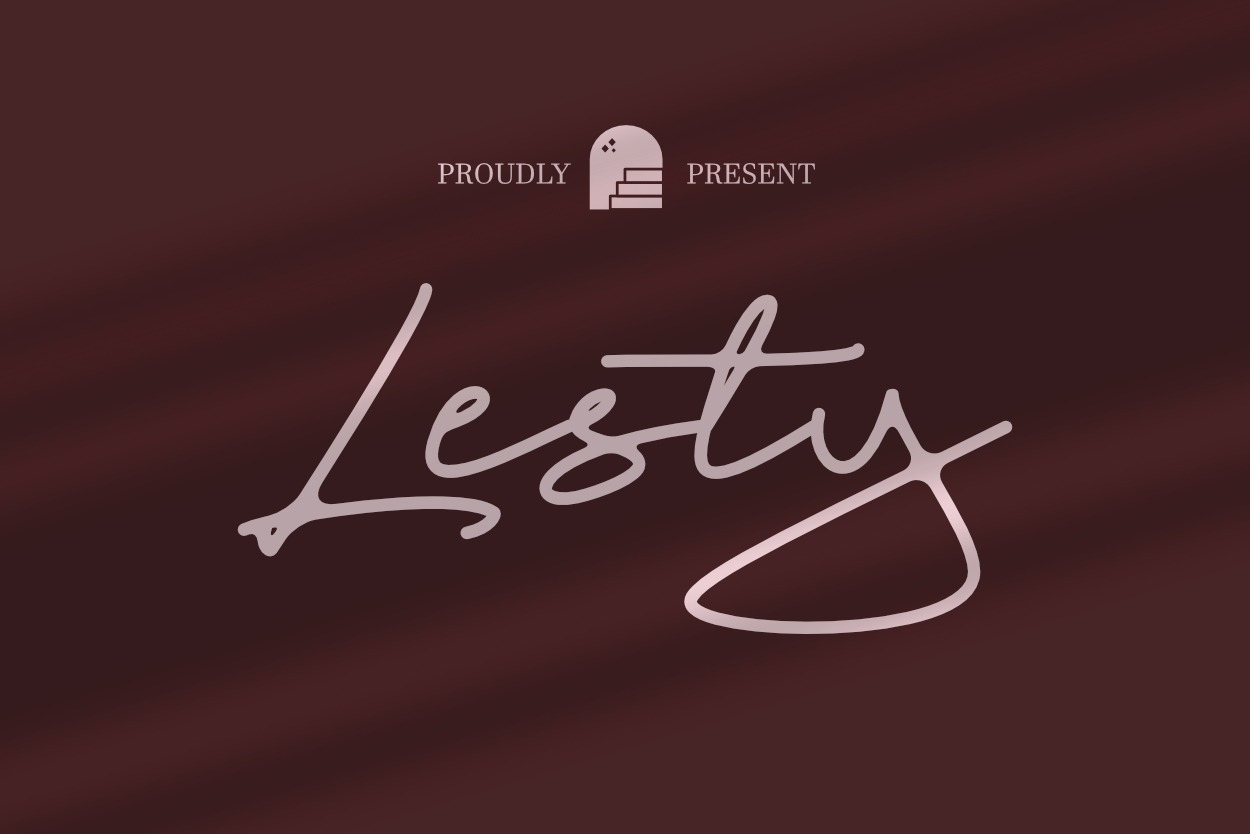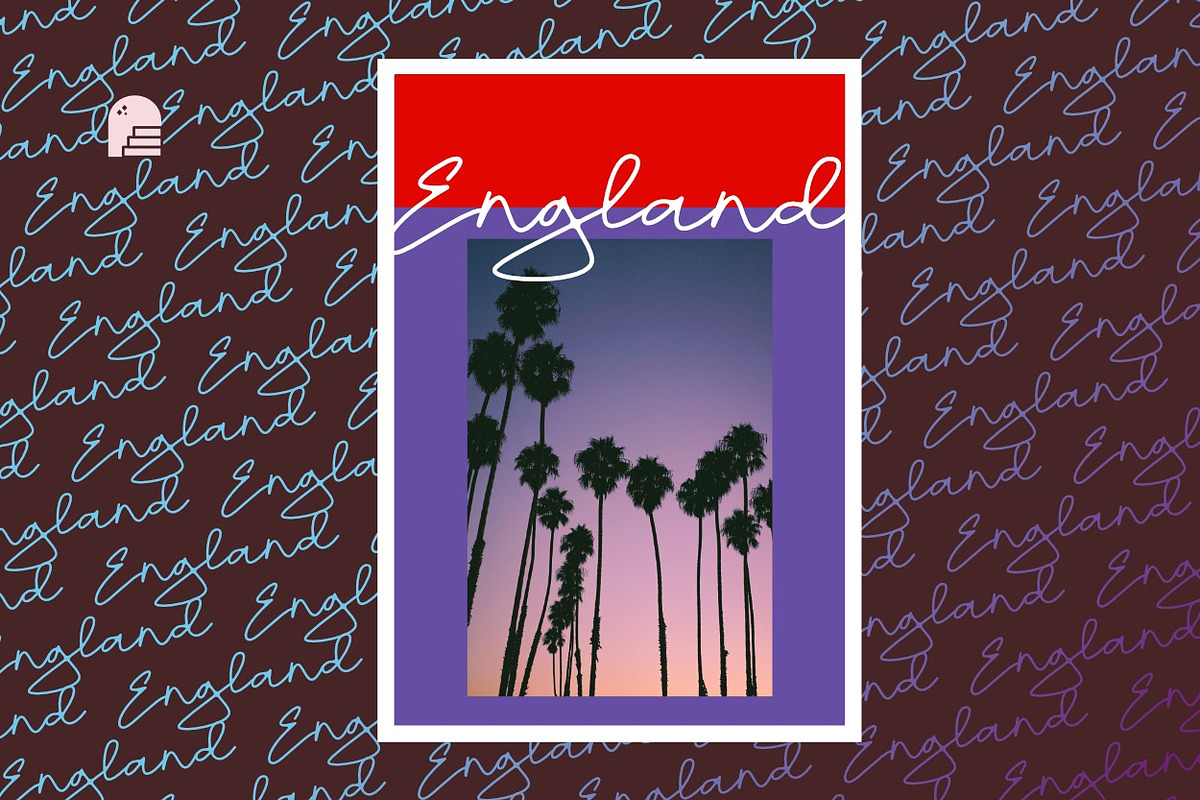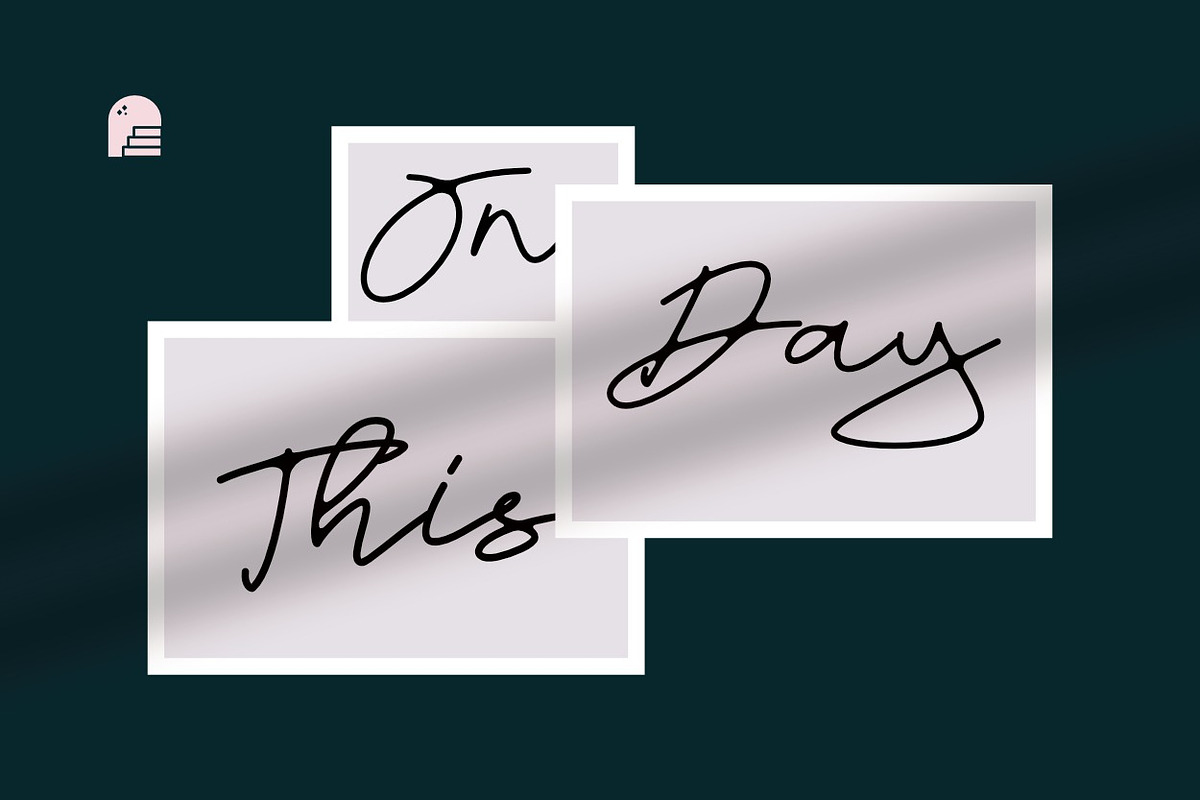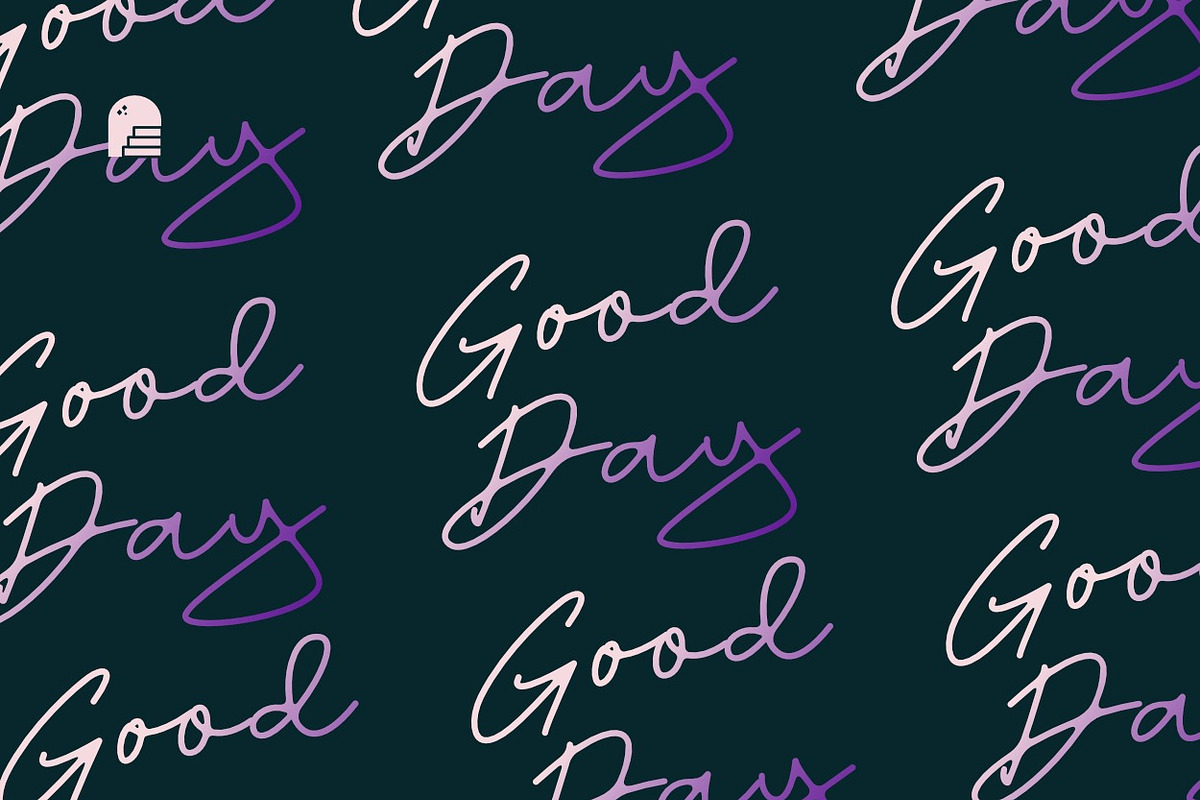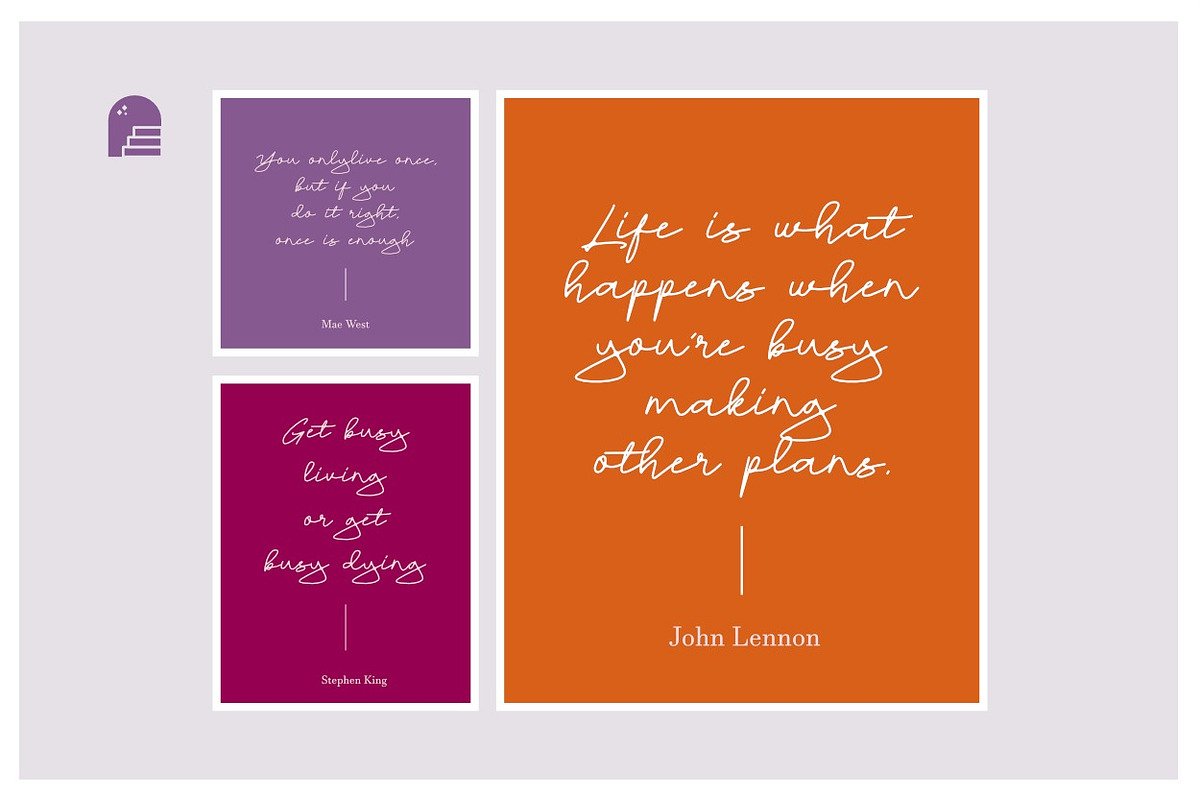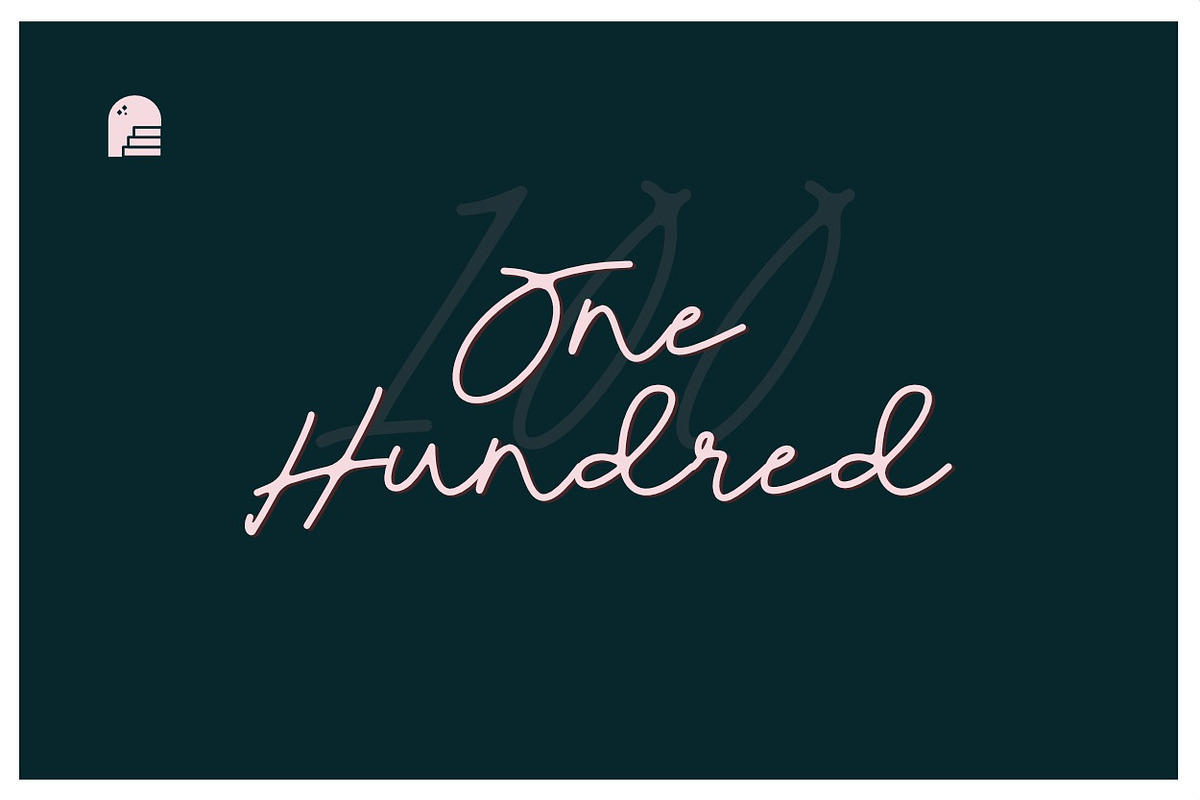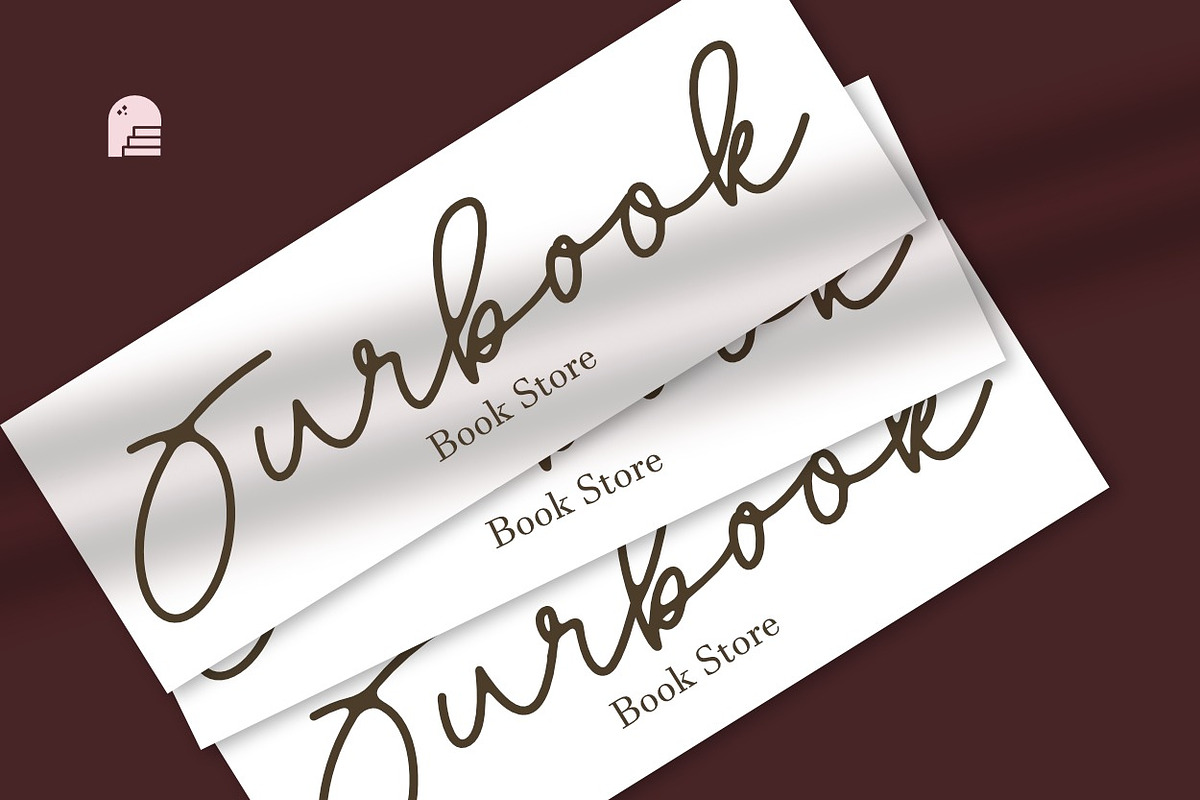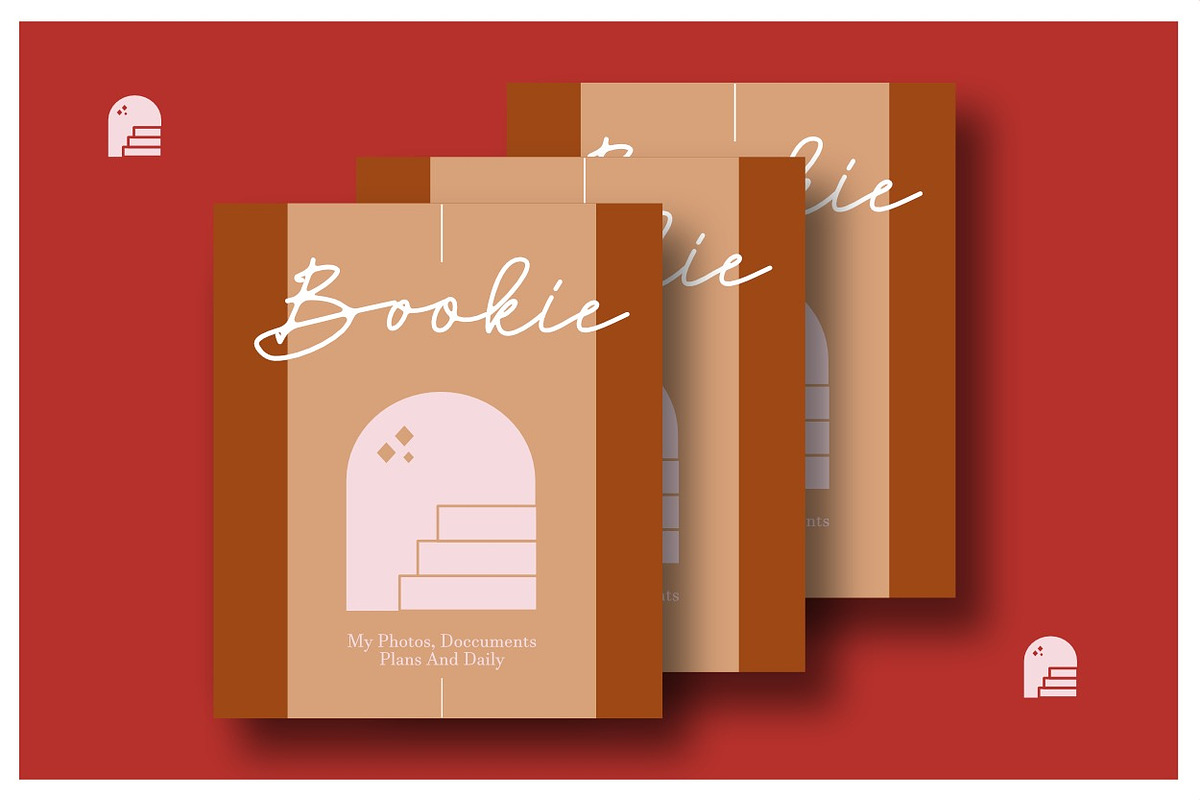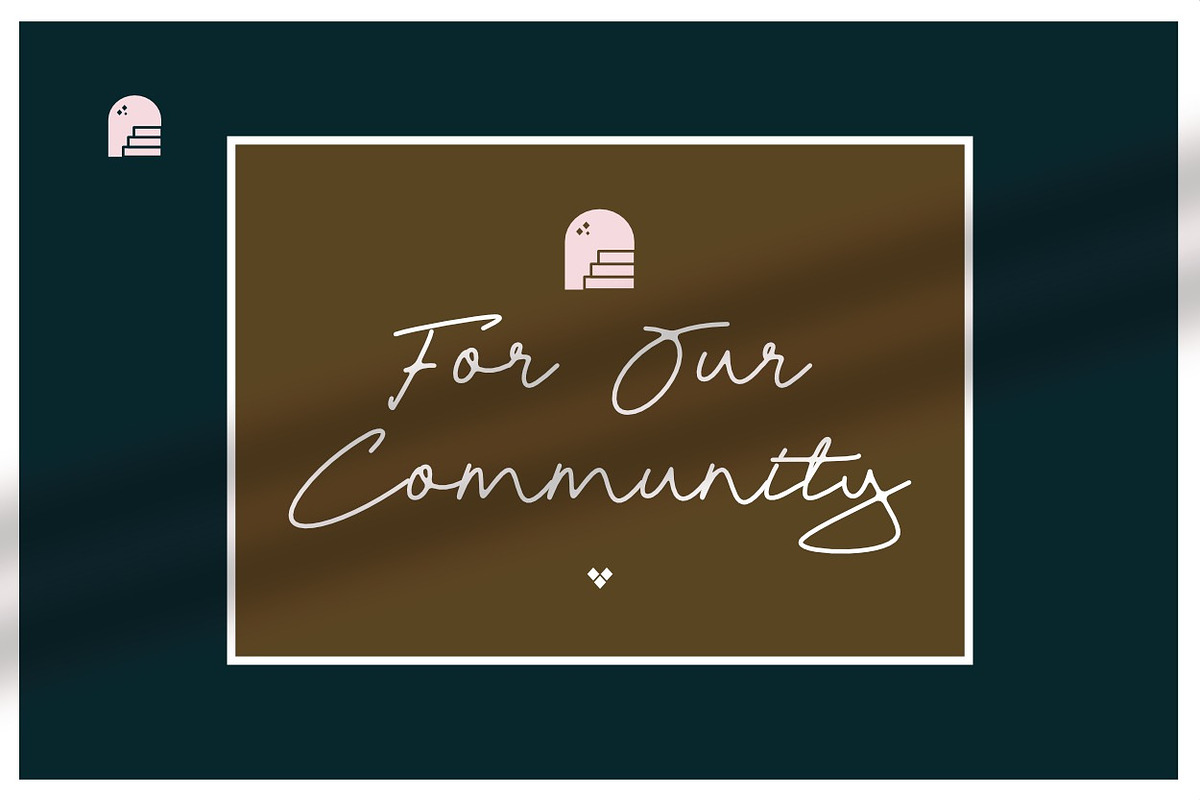
Lesty Font Script
Introducing Lesty Script an elegant new font! This font is specially created for those of you who need a touch of elegance to design your projects next with perfect results and amazing.
Lesty Script A very beautiful and interesting Handwritten, and comes with a perfect line for use for various purposes. Like titles, signatures, logos, correspondence, wedding invitations, letterheads, nameplate, labels, bulletins, posters, badges, Branding, Greeting Cards, etc.